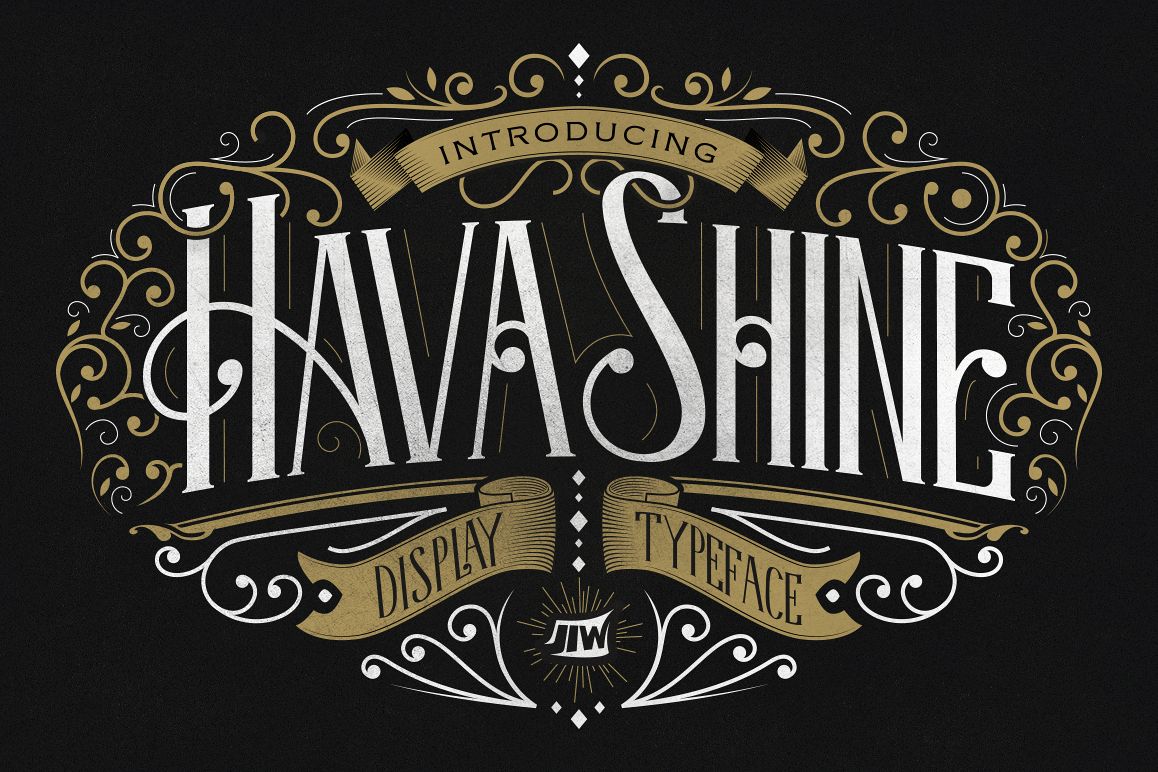
Hava Shine Typeface
Introducing new classic display typeface its called Hava Shine.Inspired by gaslight combine victorian style with classic style .OpenType features some characters that allows you to mix and match pairs of letters to fit in your designs.
To access the alternat glyphs, you need a program that supports OpenType features such as Adobe Illustrator CS and Adobe Indesign.More information about how to access alternate glyphs, you can see it on this link ( http://goo.gl/oBLKpz ). You can use this font for various purposes.such as logo, product packaging, labeling, logo, classic shop, badges, movie title, t-shirt, posters, lable, greetingcard, letterhead, book cover, etc.Open Type featuring
• Discretionary Ligatures